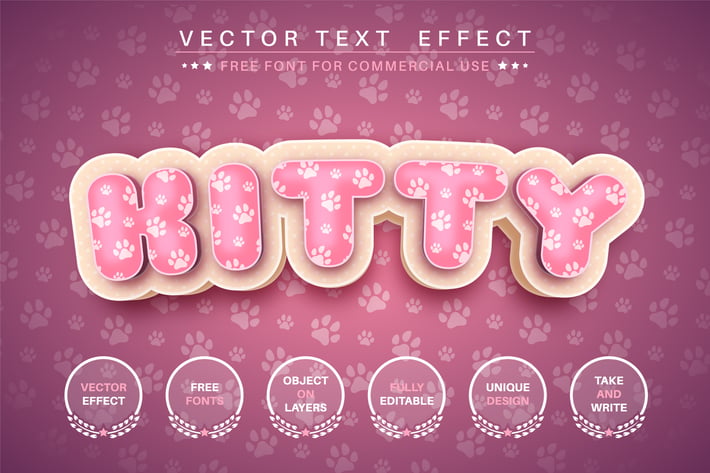
3D cat - editable text effect, font style
Hello! I'm happy to introduce my new text effect "Kitty". Just write your word and the effect will apply! Be as creative as you like to be in expressing yourself using this unique “Kitty”. Effect is perfect for any project that needs a unique handy touch whatever else your imagination leads you to!